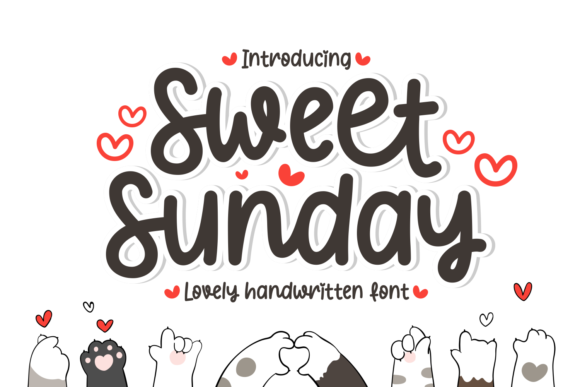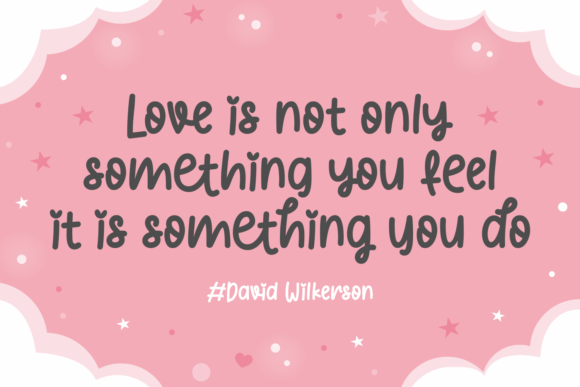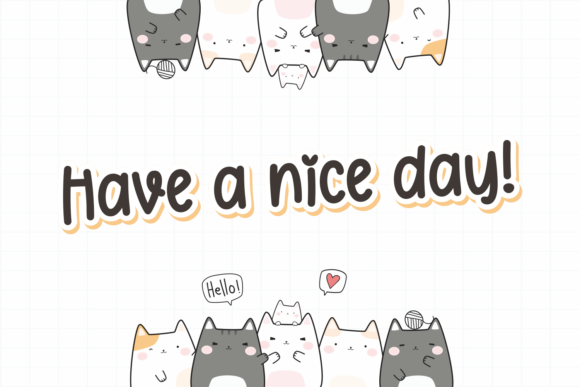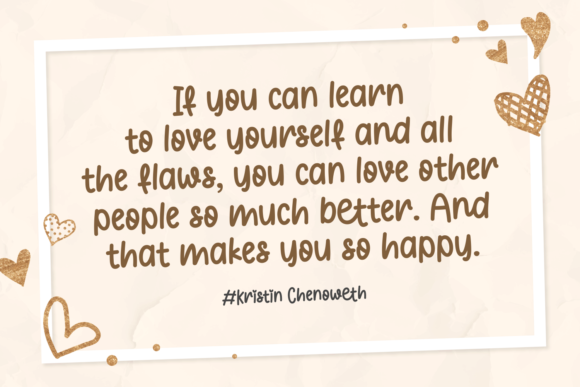
Sweet Sunday Font
About Sweet Sunday Font
Sweet Sunday is a sweet and quirky handwritten font. Dainty and joyful, this font will be ideal for writing wedding invitations, cards or any other design that may need a romantic, personalized touch!